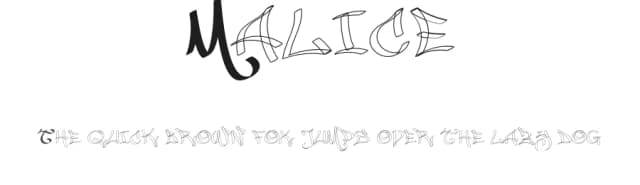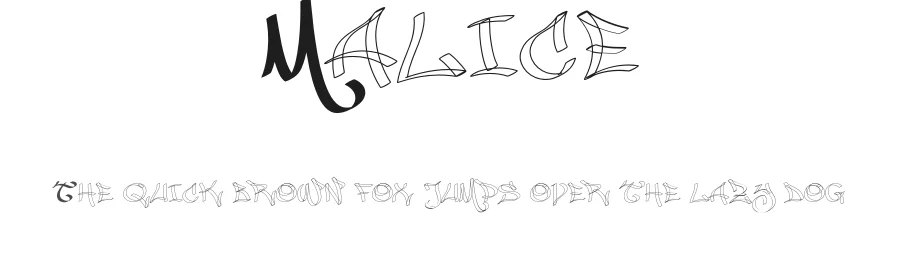
About Judas Font
Judas is a script & handwritten font designed by Shamrock. It includes 118 glyphs, a regular weight, TTF (TrueType) format, and 94 languages. Judas is free to download; check the license details on this page before commercial use. Script & handwritten fonts like Judas work best for wedding invitations, greeting cards, signatures, and elegant branding.
Judas Font is a script font that shines as a display or heading face. Pair it with a clean sans-serif or serif font for body text β the contrast creates a clear hierarchy while the two styles stay balanced and easy to read.
Judas Font is a script handwritten typeface by Shamrock, ideal for logos, invitations, branding, and creative projects.